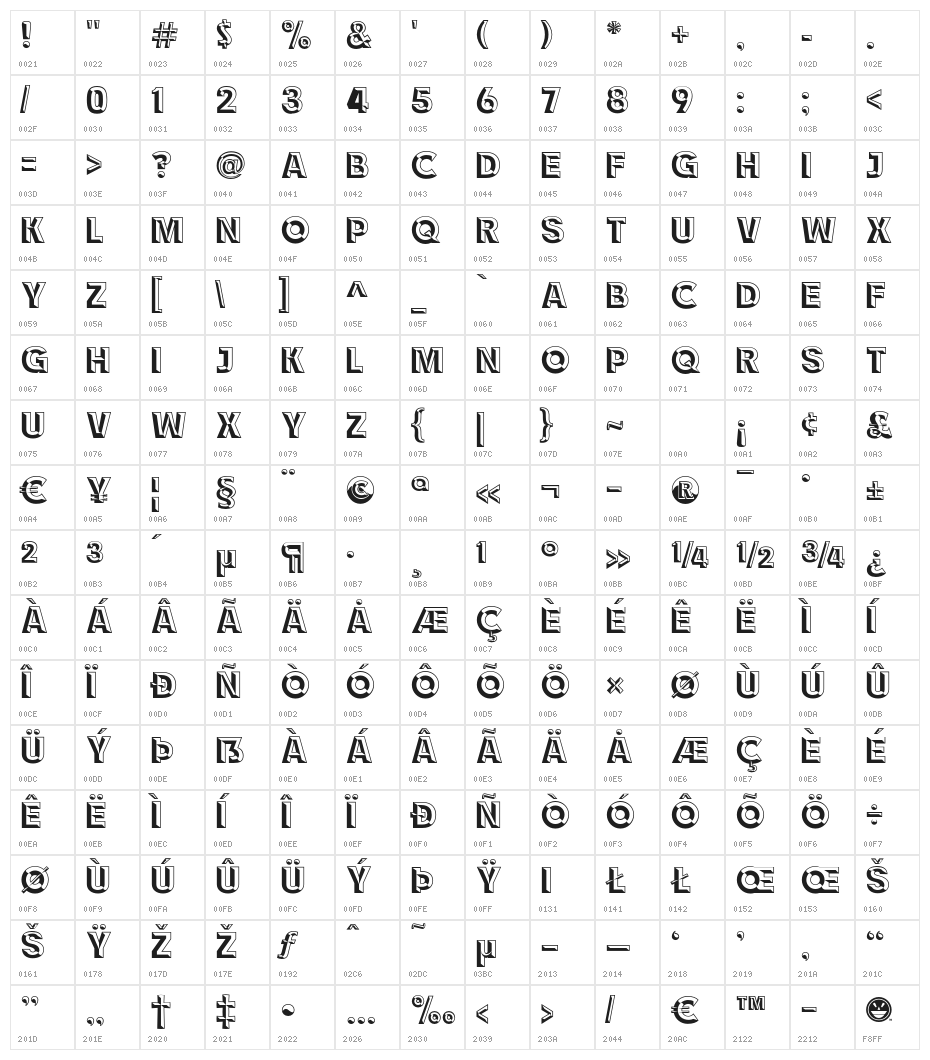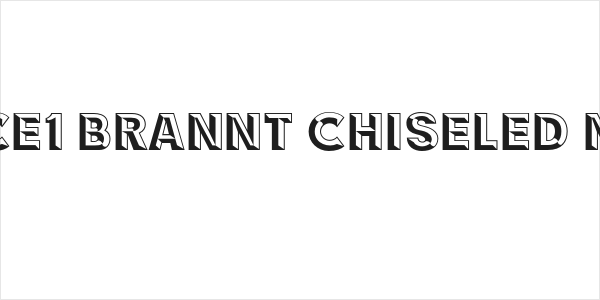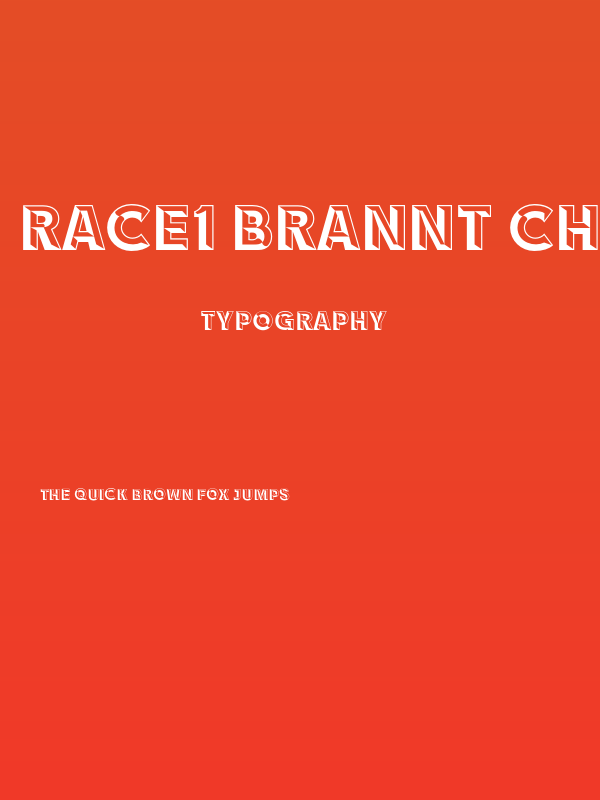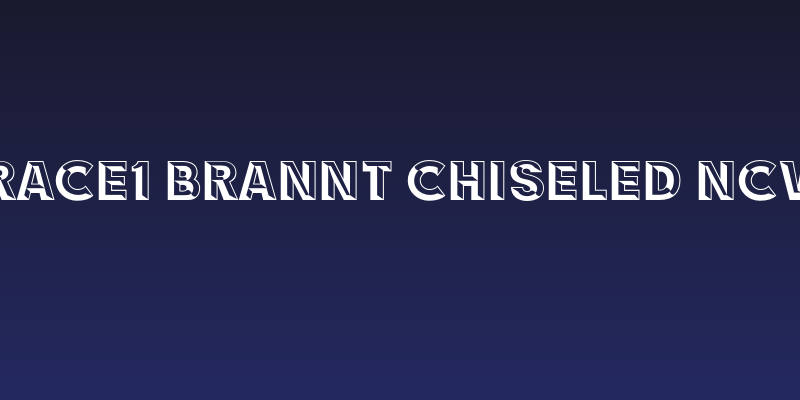
RACE1 Brannt Chiseled NCV Font
RACE1 Brannt Chiseled NCV Description
This font features a bold, chiseled appearance with a three-dimensional effect that gives it a strong and impactful presence. The characters are uppercase and numerals, each with a shadow effect that enhances the depth and adds a dynamic quality. The strokes are thick and consistent, contributing to a high contrast between the foreground and the shadow. The design is reminiscent of vintage signage or classic movie posters, making it ideal for projects that require a bold statement. The spacing between characters is normal, allowing for readability while maintaining the font's dramatic style.
| Proposed Projects | Ideal for vintage posters, signage, logos, and headlines that require a strong visual impact. |